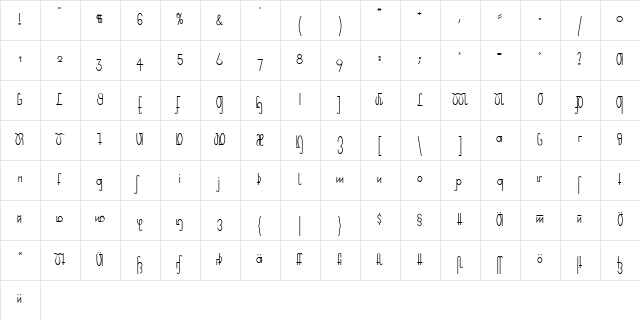
Rudelskopf deutsch Aufrecht
| Foundry | Peter Wiegel |
| Designer | Peter Wiegel |
Design Context for Rudelskopf deutsch Typeface
Rudelskopf deutsch is a composed and adaptable typeface that performs quietly and consistently across a wide range of design contexts.